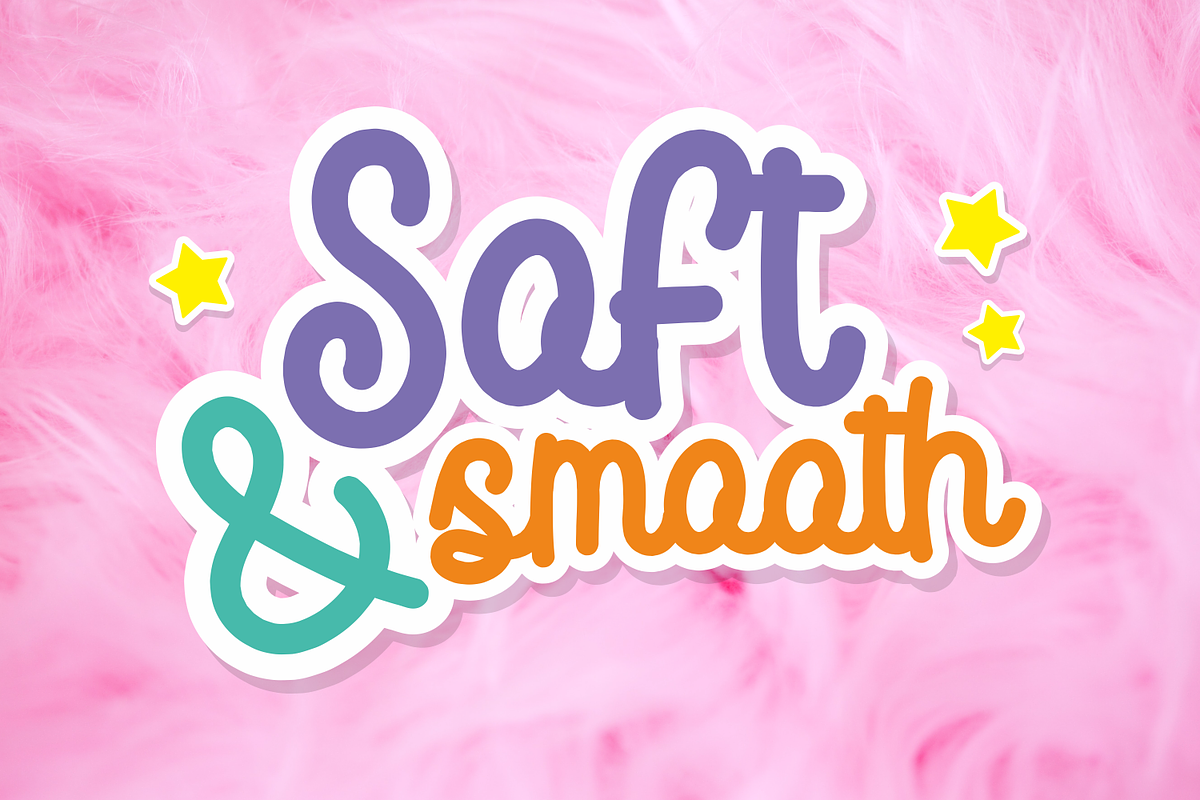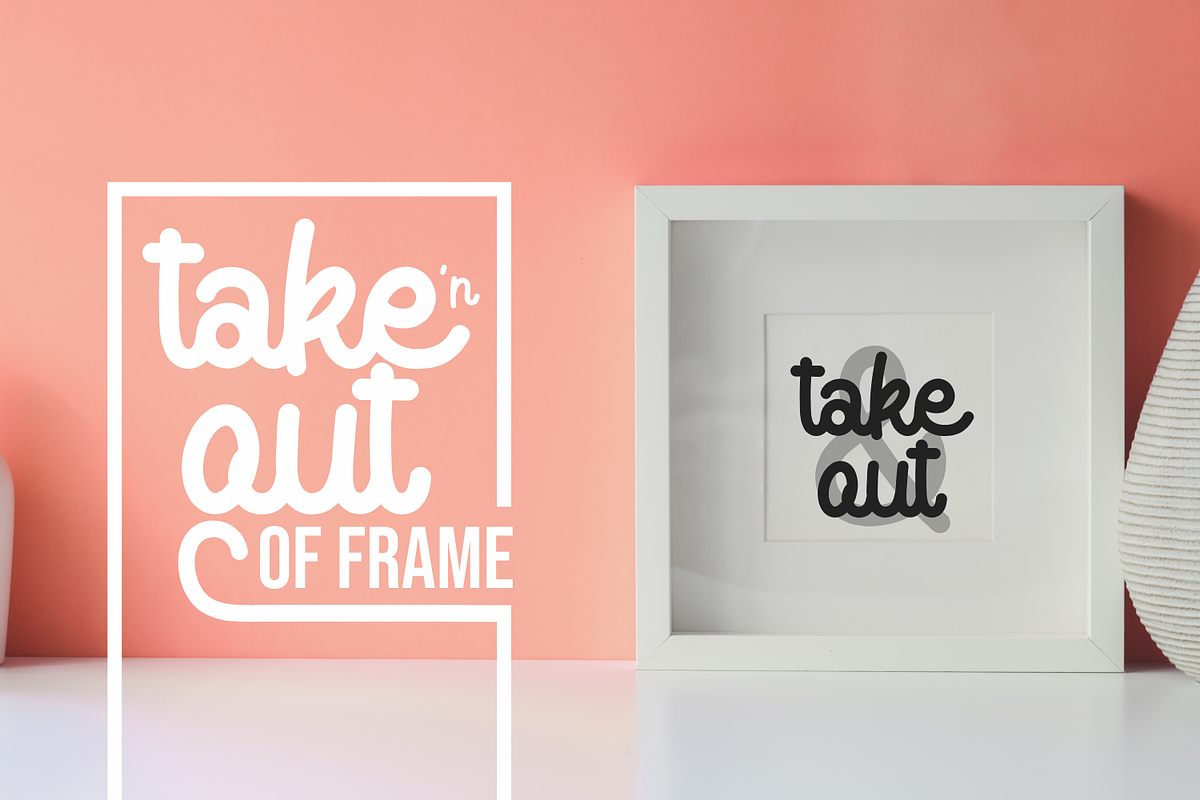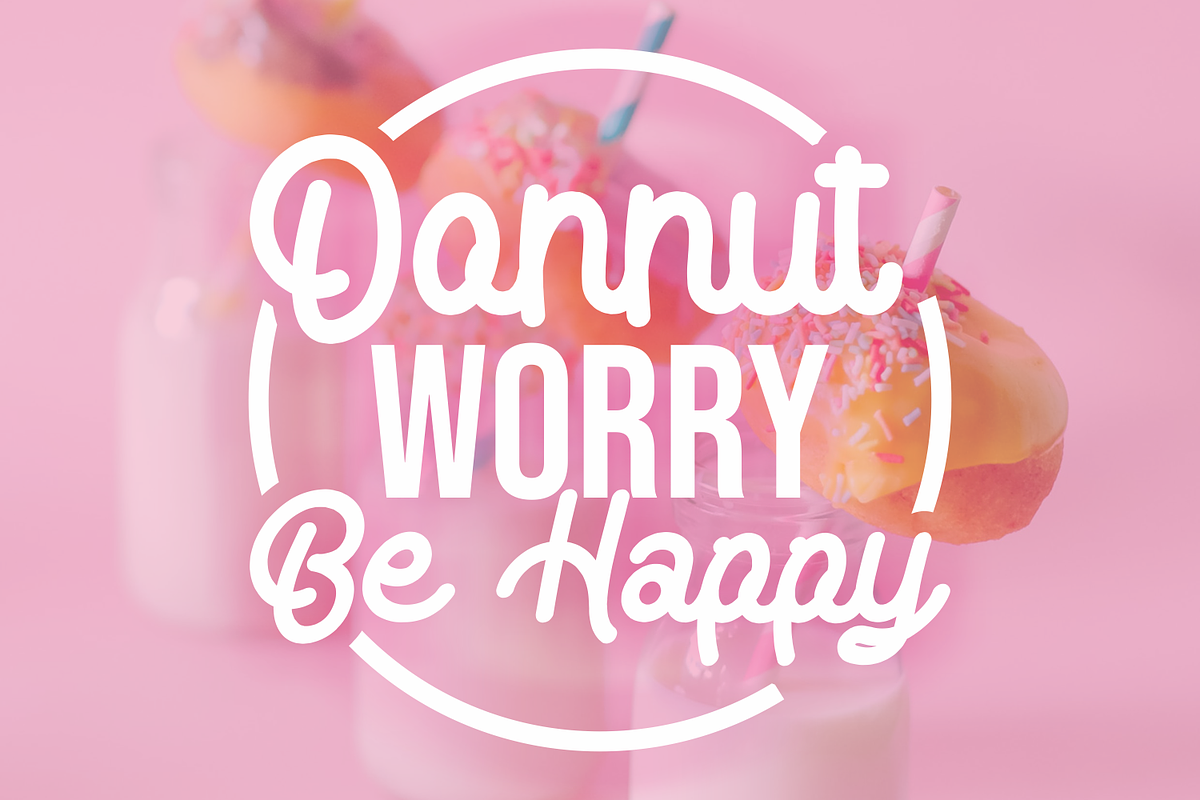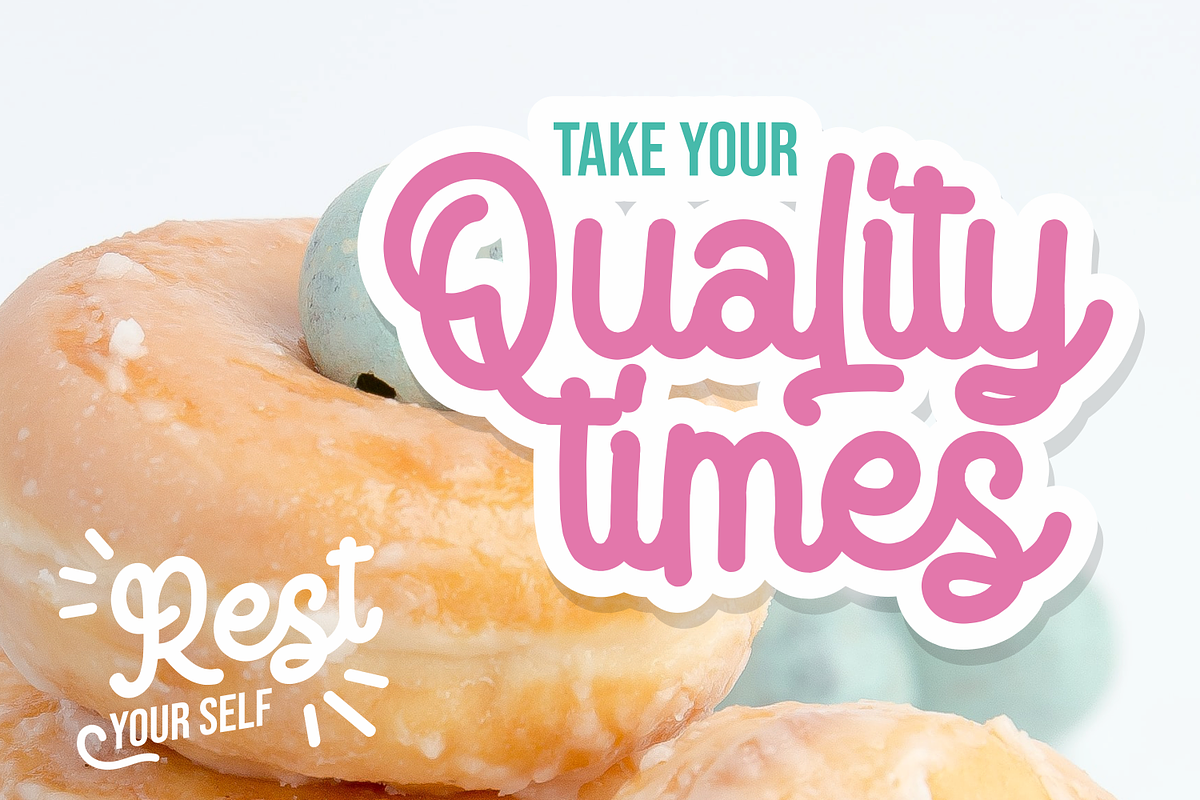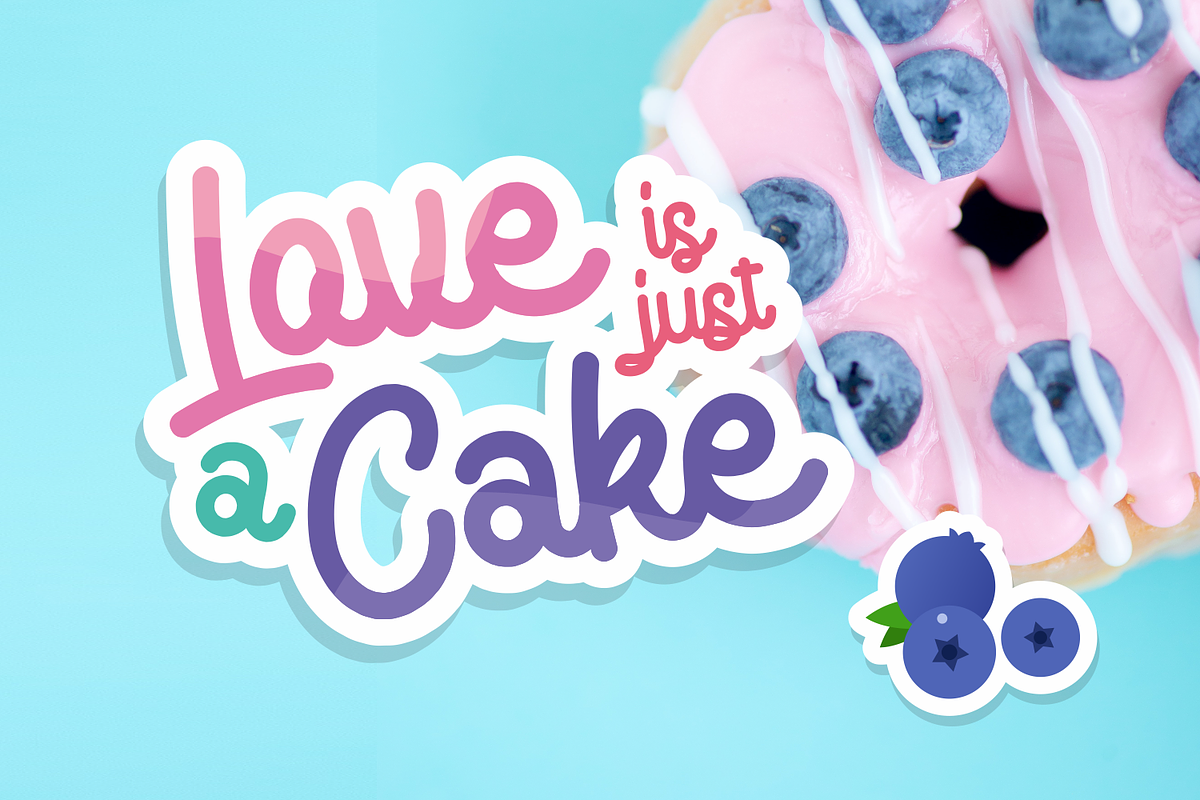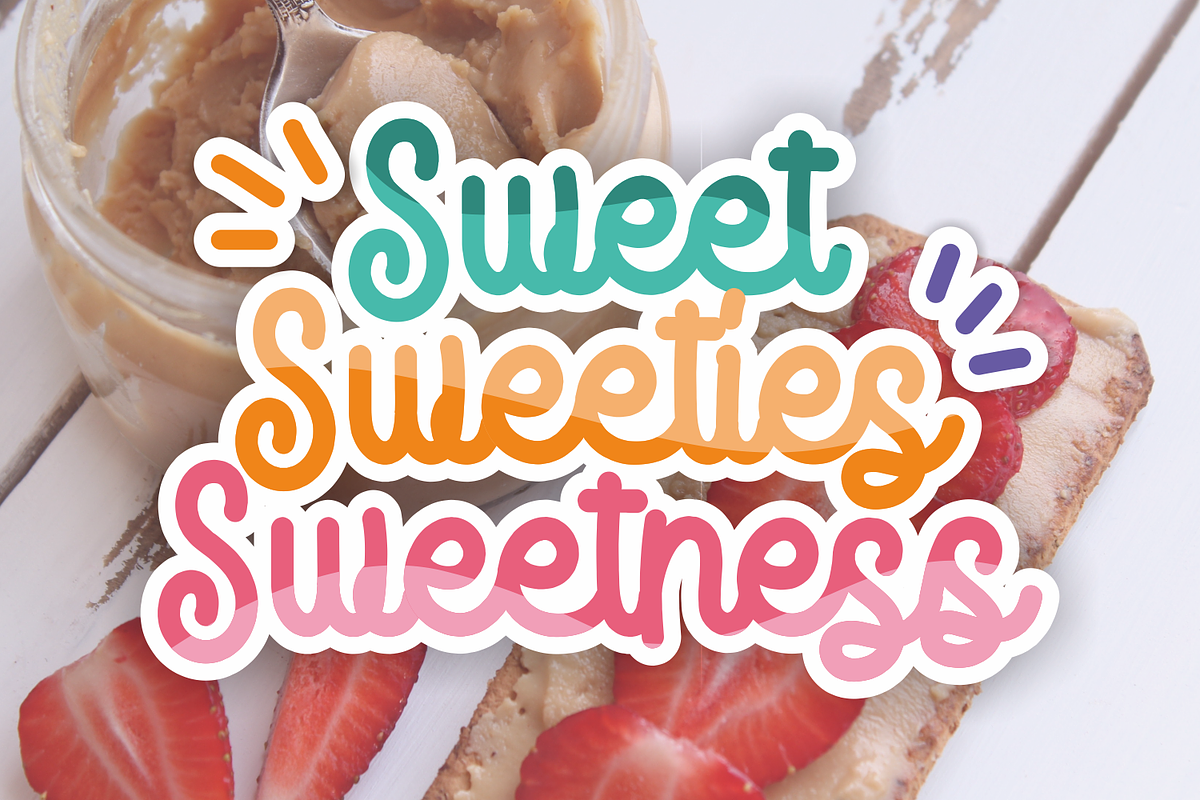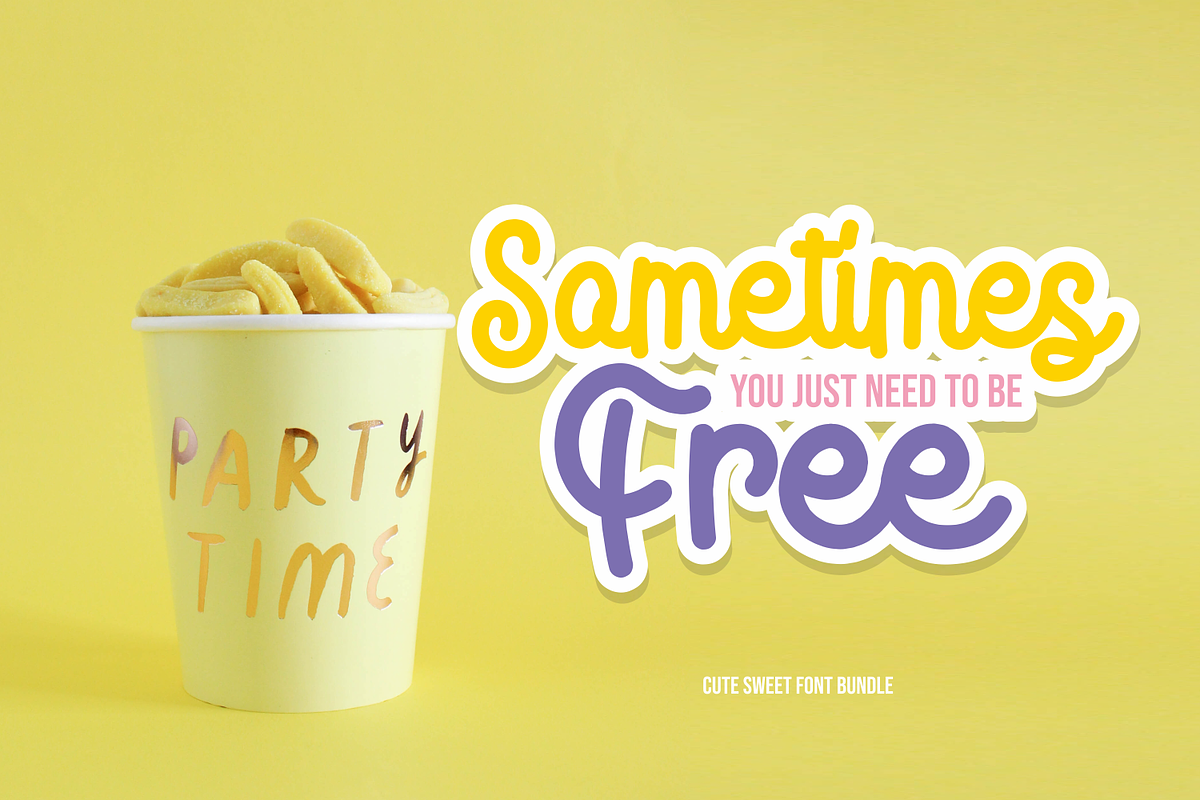
Peanut Butter, a sweet script font
Peanut Butter is a playful, cheerful, sweet, and quirky font that will work perfectly for kids projects or any business that wants to appear fun and playful.
- Features:
- Uppercase & Lowercase
- Stylistic Alternates (ending swash)
- Multilingual characters